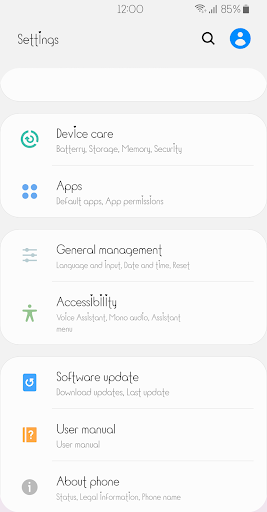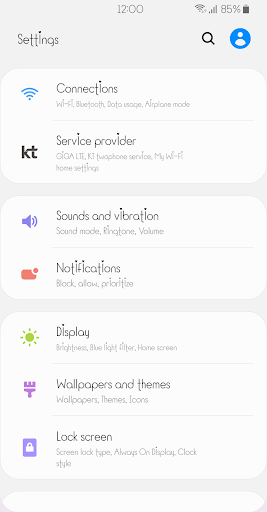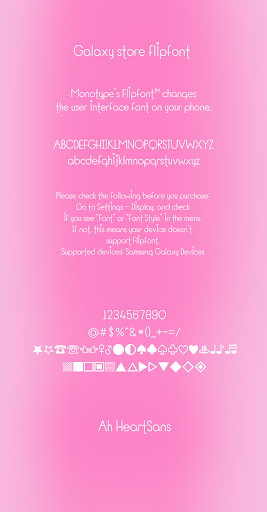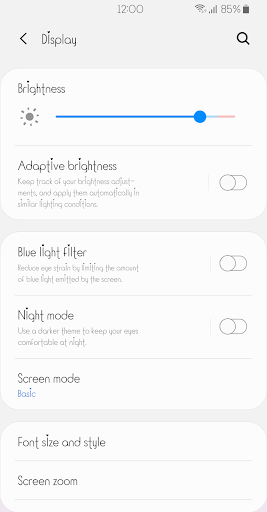
AhHeartSans
This font has a neat Gothic form. It's a long body style and has a heart shape hidden as a point.Let's use fonts while feeling interesting height changes!